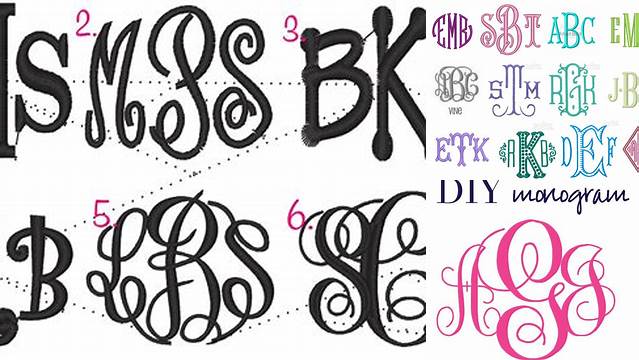
Free Monogram Fonts: Design Your Own Unique Monograms
Are you looking to add a personal touch to your designs? Monogram fonts are a fantastic way to do just that! These stylish fonts allow you to combine initials in a visually appealing way, perfect for logos, wedding invitations, personalized gifts, and so much more. In this article, we'll dive deep into the world of monogram fonts, exploring what they are, where to find them for free, and how to use them effectively. Guys, get ready to unleash your creativity with the wonderful world of monograms! We'll cover everything from the basics of monogram fonts to advanced tips and tricks for creating stunning designs. So, whether you're a seasoned designer or just starting out, this guide has something for you. Monogram fonts are more than just letters; they're a statement, a way to express individuality and style. By mastering the art of using monogram fonts, you can elevate your design projects and leave a lasting impression. Let's embark on this creative journey together and discover the endless possibilities that monogram fonts offer. Remember, the key to a great monogram lies in the font choice, the arrangement of the letters, and the overall design aesthetic. Keep experimenting, and you'll be amazed at the unique and beautiful creations you can come up with. So, let's get started and explore the exciting world of monogram fonts!
What are Monogram Fonts?
Let's break it down, guys. Monogram fonts are special typefaces designed to create monograms – those elegant combinations of two or three letters, typically initials. Unlike regular fonts where each letter stands alone, monogram fonts often feature interlocking or overlapping characters, creating a cohesive and visually appealing design. These fonts come in a huge variety of styles, from classic and traditional to modern and quirky, so you can definitely find one that matches your vibe. When we talk about monogram fonts, we're not just talking about a single style; we're talking about a whole universe of possibilities. Think about the different occasions where monograms are used – weddings, birthdays, anniversaries, business branding, and more. Each occasion calls for a different style, a different feel, and a different kind of monogram font. A classic, elegant monogram font might be perfect for a wedding invitation, while a bold, modern font might be better suited for a business logo. The beauty of monogram fonts lies in their versatility. They can be used in so many different ways and across so many different mediums. From print to digital, from small-scale projects to large-scale campaigns, monogram fonts can add a touch of sophistication and personalization. So, whether you're designing a logo for your startup or creating custom stationery for your personal use, consider the impact a well-chosen monogram font can have. It's a small detail that can make a big difference, transforming an ordinary design into something truly special. Remember, the key is to choose a font that reflects your personality and style, and that complements the overall design aesthetic. With a little creativity and experimentation, you can create stunning monograms that will impress and inspire.
Where to Find Free Monogram Fonts
How to Use Monogram Fonts Effectively
Okay, you've got your free monogram font – now what? It's not just about slapping letters together, guys. To create a truly stunning monogram, think about the letter arrangement, spacing, and overall design. For a traditional three-letter monogram, the last name initial usually goes in the center and is larger than the other two. But hey, rules are meant to be broken! Feel free to experiment and find what looks best for your project. Using monogram fonts effectively is an art form, a delicate balance between tradition and innovation. It's about respecting the history and heritage of monograms while also pushing the boundaries and exploring new creative possibilities. When you're working with monogram fonts, think about the story you want to tell. What message do you want to convey? What feeling do you want to evoke? The font choice, the letter arrangement, and the overall design should all work together to create a cohesive and meaningful whole. Consider the context in which the monogram will be used. Is it for a wedding invitation? A business logo? A personalized gift? The context will influence your design choices, from the font style to the color palette to the overall aesthetic. For example, a monogram for a wedding invitation might be elegant and romantic, while a monogram for a business logo might be clean and professional. Don't be afraid to get creative with your monogram designs. Experiment with different shapes, colors, and embellishments. Add a floral motif, a geometric pattern, or a subtle texture to your monogram to make it stand out. Remember, the goal is to create something unique and memorable, something that reflects your personal style and taste. Pay attention to the details. The spacing between the letters, the size of the initials, and the overall balance of the design can make a big difference in the final result. Take the time to refine your monogram and make sure everything is just right. With a little practice and attention to detail, you can create stunning monograms that will impress and inspire. So, let your creativity flow, guys, and have fun exploring the endless possibilities of monogram fonts!
Tips and Tricks for Creating Stunning Monograms
Want to take your monogram game to the next level? Here are some pro tips! First, play with different font combinations. You don't have to stick to just one monogram font. Try pairing a fancy script font with a simpler sans-serif for a modern twist. Second, consider the color. A pop of color can really make your monogram stand out. Third, don't be afraid to add embellishments. Think swirls, flourishes, or even small graphics. And last but not least, always get feedback. Ask your friends or colleagues what they think of your design. A fresh pair of eyes can often spot things you might have missed. Creating stunning monograms is a journey, guys, a process of experimentation, discovery, and refinement. It's about pushing your creative boundaries, exploring new techniques, and learning from your mistakes. One of the most important tips for creating stunning monograms is to have a clear vision in mind. What is the purpose of the monogram? Who is it for? What message do you want to convey? Having a clear understanding of your goals will help you make informed design choices and create a monogram that is both beautiful and meaningful. Another key tip is to pay attention to the details. The smallest details can make a big difference in the overall impact of your monogram. Consider the spacing between the letters, the thickness of the lines, and the overall balance of the design. Experiment with different layouts and arrangements to see what works best. Don't be afraid to try something new. Monogram design is all about creativity and innovation. If you're stuck in a rut, try looking at other designs for inspiration. Browse online galleries, flip through design magazines, or visit museums and art galleries. Pay attention to the colors, shapes, and patterns that catch your eye, and think about how you can incorporate them into your own designs. Remember, the best way to improve your monogram design skills is to practice. The more you design, the better you'll become. So, grab your tools, get creative, and start experimenting! With a little time and effort, you'll be creating stunning monograms in no time. So, go out there, guys, and unleash your inner monogram artist!
Monogram fonts are a fantastic tool for adding a personalized and elegant touch to your designs. With so many free options available, there's no excuse not to give them a try. Just remember to choose your fonts wisely, arrange your letters thoughtfully, and have fun with the process. You'll be creating amazing monograms in no time! So, there you have it, guys! A comprehensive guide to the wonderful world of free monogram fonts. We've covered everything from what monogram fonts are to where to find them to how to use them effectively. We've also shared some tips and tricks for creating stunning monograms that will impress your friends, family, and clients. The key takeaway here is that monogram fonts are a powerful tool for personalization and branding. They can add a touch of elegance and sophistication to any design project, from wedding invitations to business logos to personalized gifts. And with so many free options available, there's no reason not to experiment and see what you can create. But remember, guys, the best way to master the art of monogram design is to practice, practice! So, don't be afraid to try new things, to make mistakes, and to learn from them. The more you design, the better you'll become. And most importantly, have fun! Monogram design should be a creative and enjoyable process. So, let your imagination run wild, and see what amazing monograms you can come up with. Whether you're a seasoned designer or just starting out, we hope this article has inspired you to explore the world of monogram fonts and to create something truly special. So, go forth and create, guys! The world is waiting to see your stunning monogram designs!